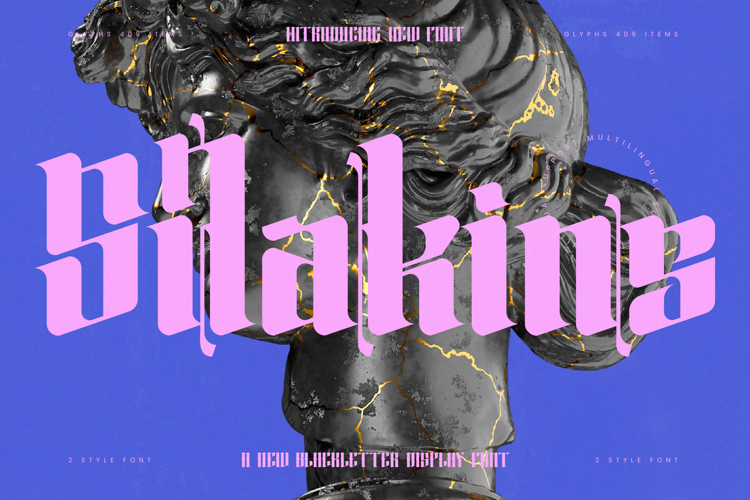
Silakins - New Blackletter Display Font
Unleash a new era of typographic elegance with Font Silakins - New Blackletter Display Font Blackletter. This exceptional typeface masterfully reinterprets the classic Blackletter style, infusing it with a bold, contemporary aesthetic. Its striking appearance is characterized by elegant curves and a captivating blend of strong, high-contrast strokes, making it instantly recognizable and profoundly impactful for any design seeking a unique, sophisticated edge.
Expand your design horizons without boundaries. With its extensive multilingual support, Font Silakins - New Blackletter Display Font Blackletter adapts seamlessly across global markets, making it incredibly versatile for international projects. This commitment to global compatibility ensures your message resonates powerfully, regardless of the language, empowering designers to create universally compelling visuals with ease and professionalism.
Craft an unforgettable brand presence that commands attention. Font Silakins - New Blackletter Display Font Blackletter is perfect for luxury branding, high-end packaging, distinctive editorial design, and impactful headlines. Its inherent prestige elevates logos, invitations, and promotional materials, guaranteeing a sophisticated and visually rich experience that conveys exclusivity and a refined sense of artistry to your audience.
Elevate your projects with unparalleled distinction and a touch of modern antiquity. Choose Font Silakins - New Blackletter Display Font Blackletter to infuse your work with a truly unique and memorable character. It's more than just a font; it's a statement, designed to transform ordinary text into extraordinary visual narratives, ensuring your designs stand out in a competitive landscape with remarkable confidence.